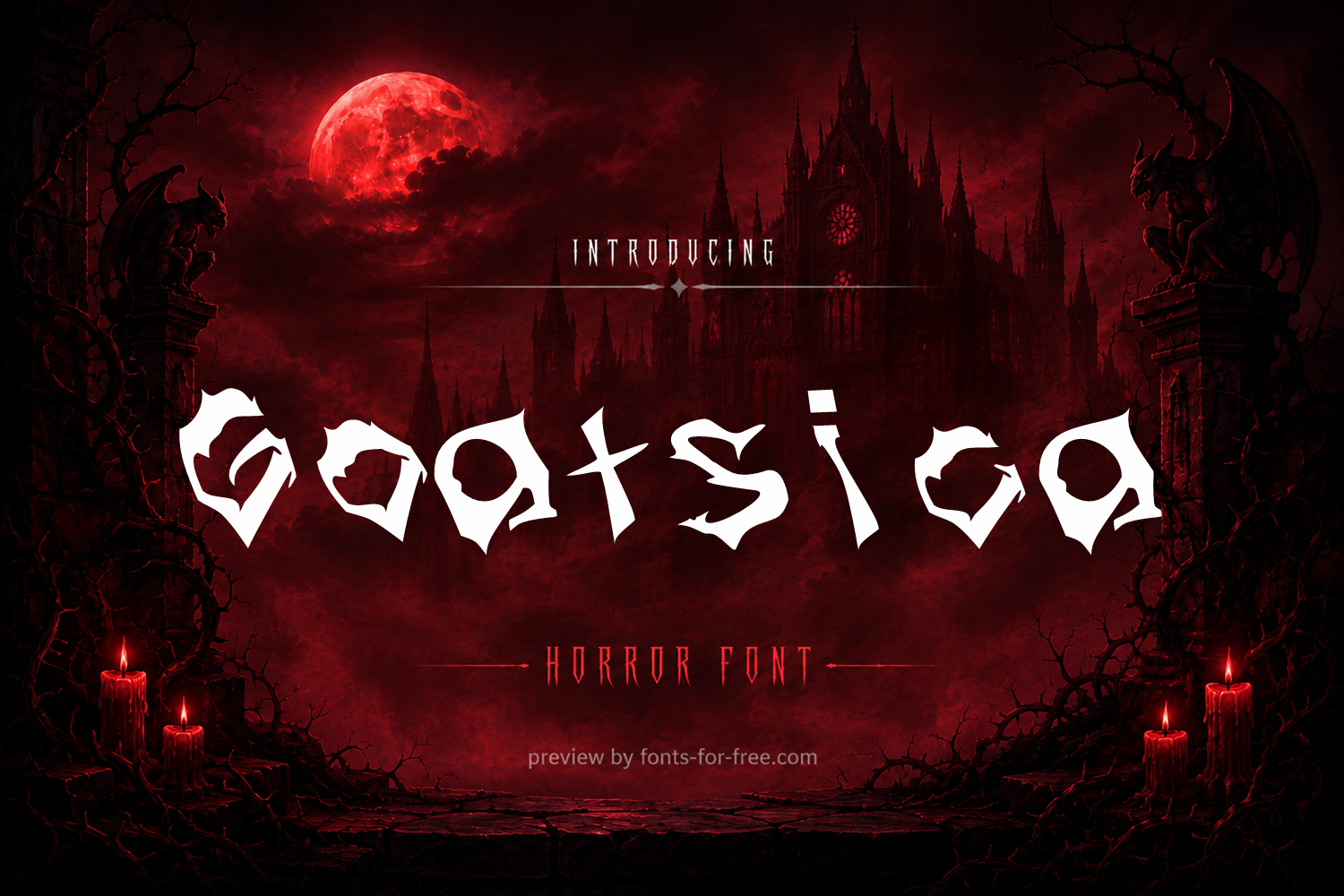
Goatsica
Goatsica is a decorative horror display font designed by Danila Filchenkov, built from sharp, torn, and irregular letterforms with a strong gothic tone. Its characters use jagged edges, uneven cuts, and angular silhouettes that create a rough, ritual-like rhythm across words. The font is most readable at large sizes, where its dramatic shapes and broken strokes can be clearly seen. Goatsica suits horror titles, dark fantasy posters, metal-inspired graphics, Halloween layouts, game logos, and other display settings that need an aggressive, eerie visual voice. It is distributed under the SIL Open Font License.